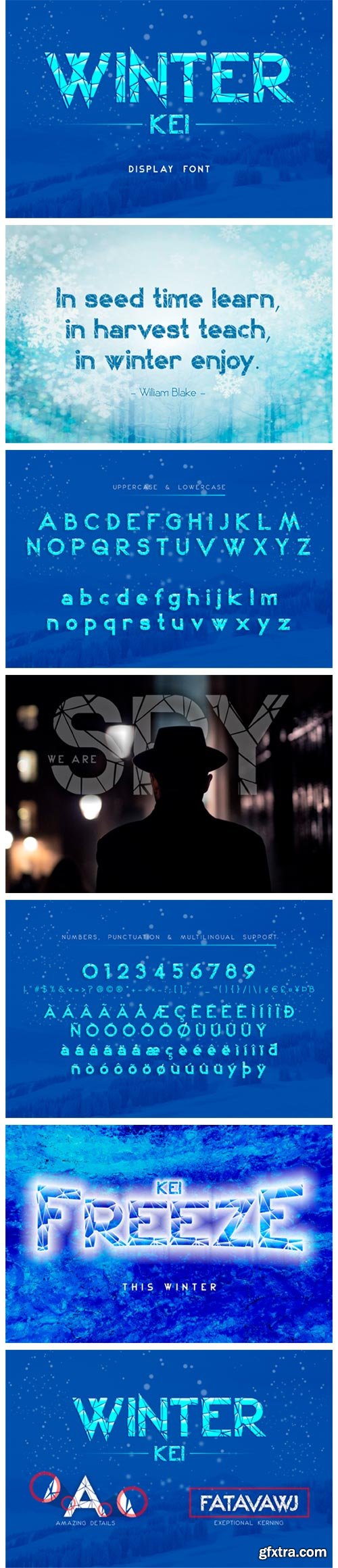
Winter Kei Font
Winter Kei is a bold and powerful display font with wintery nuances. Its extraordinary design features a shattered mirror or ice shards.